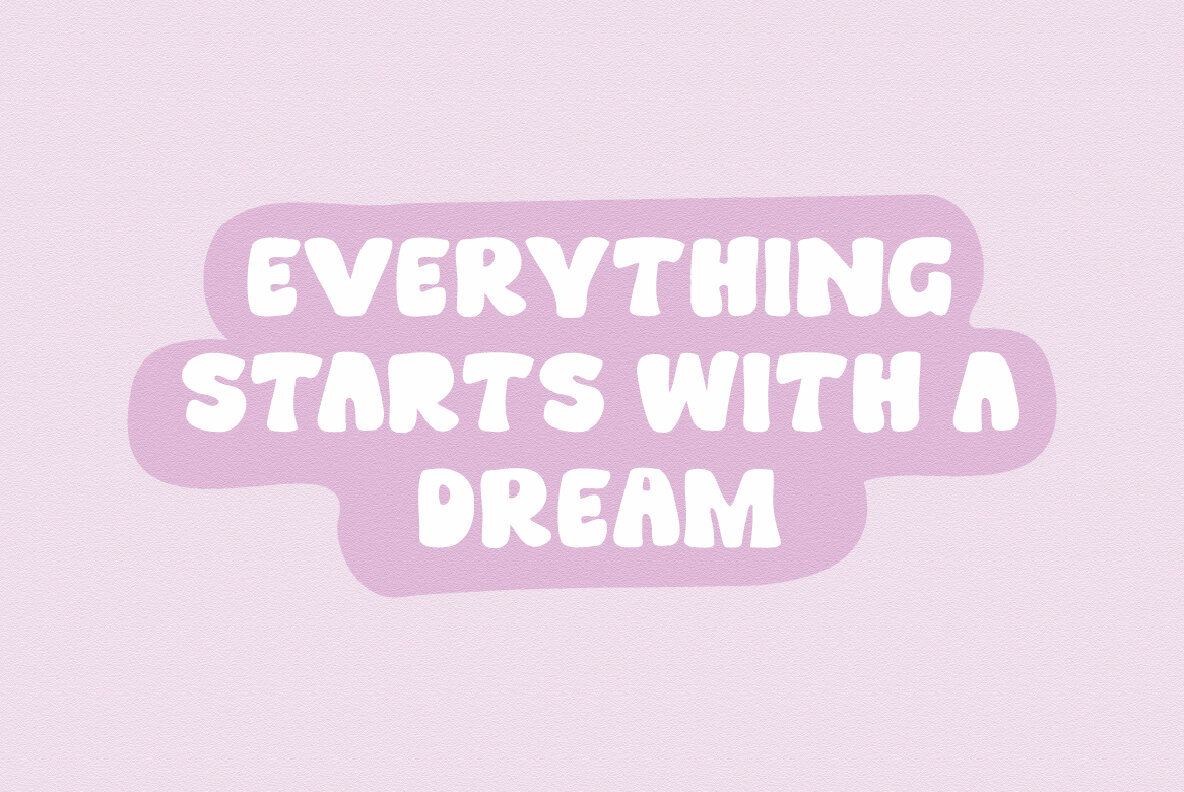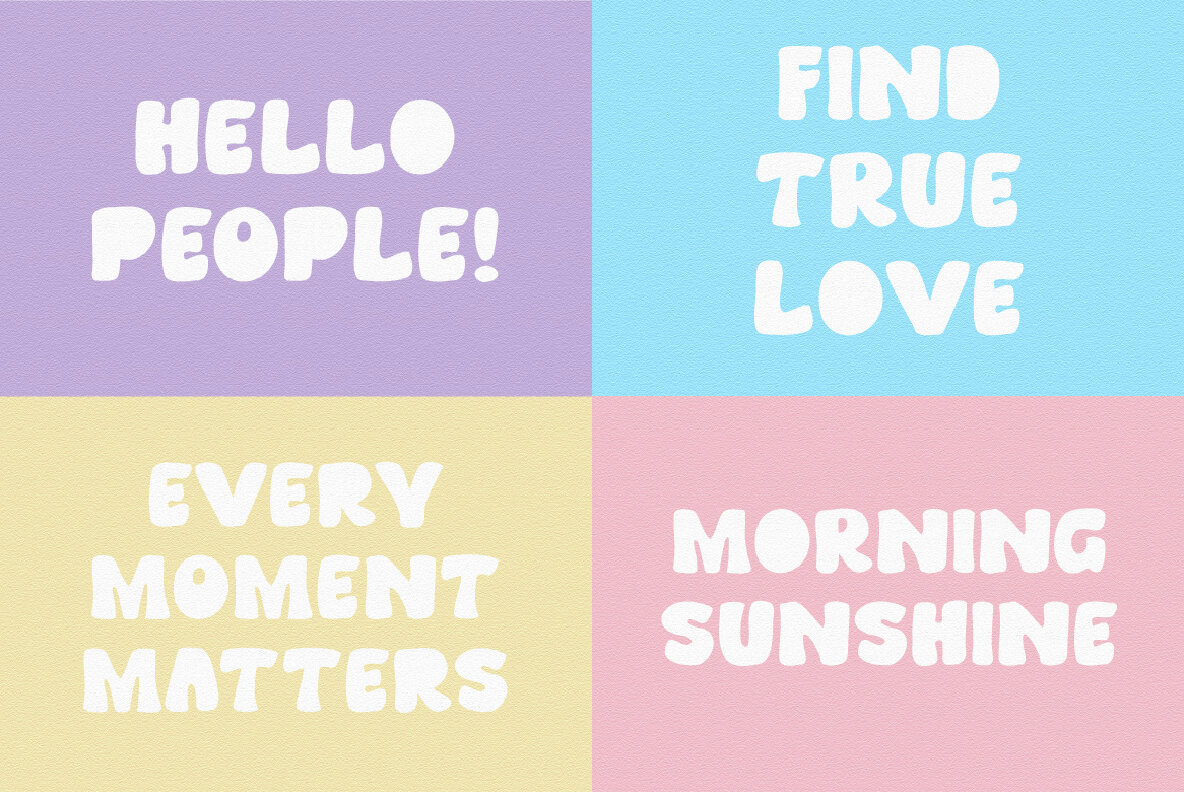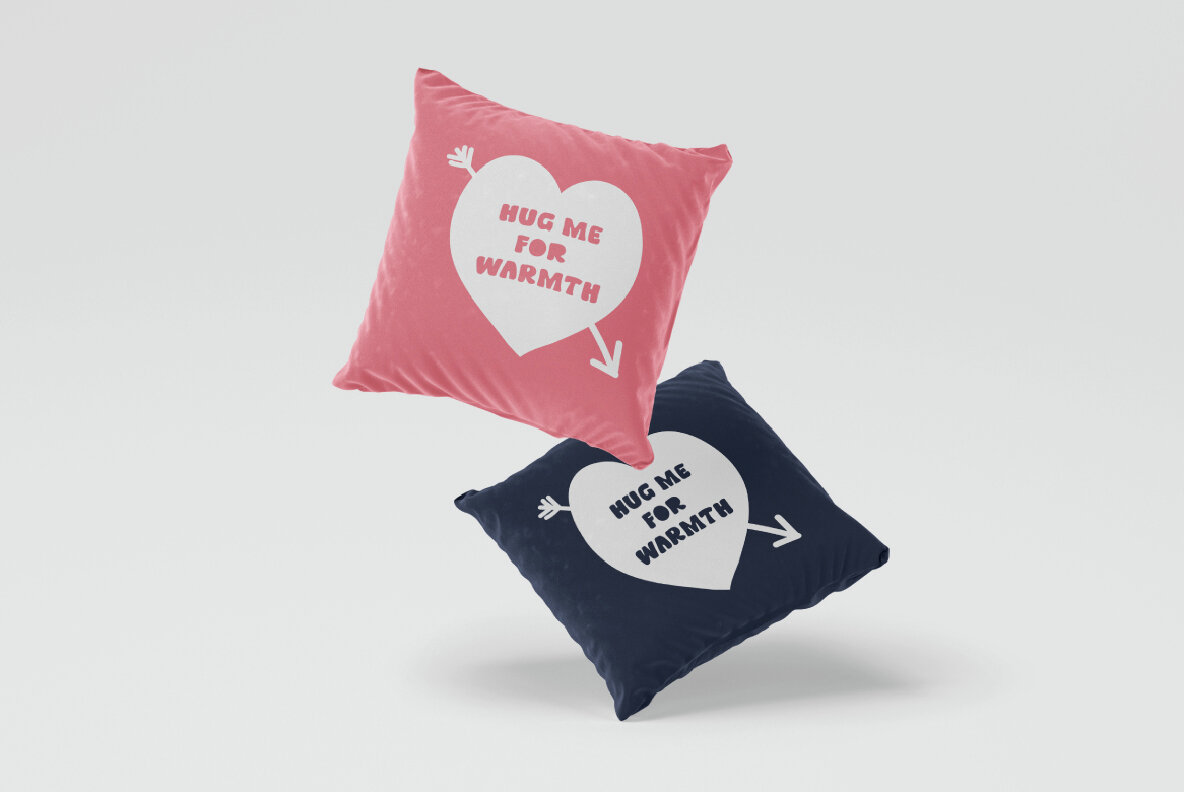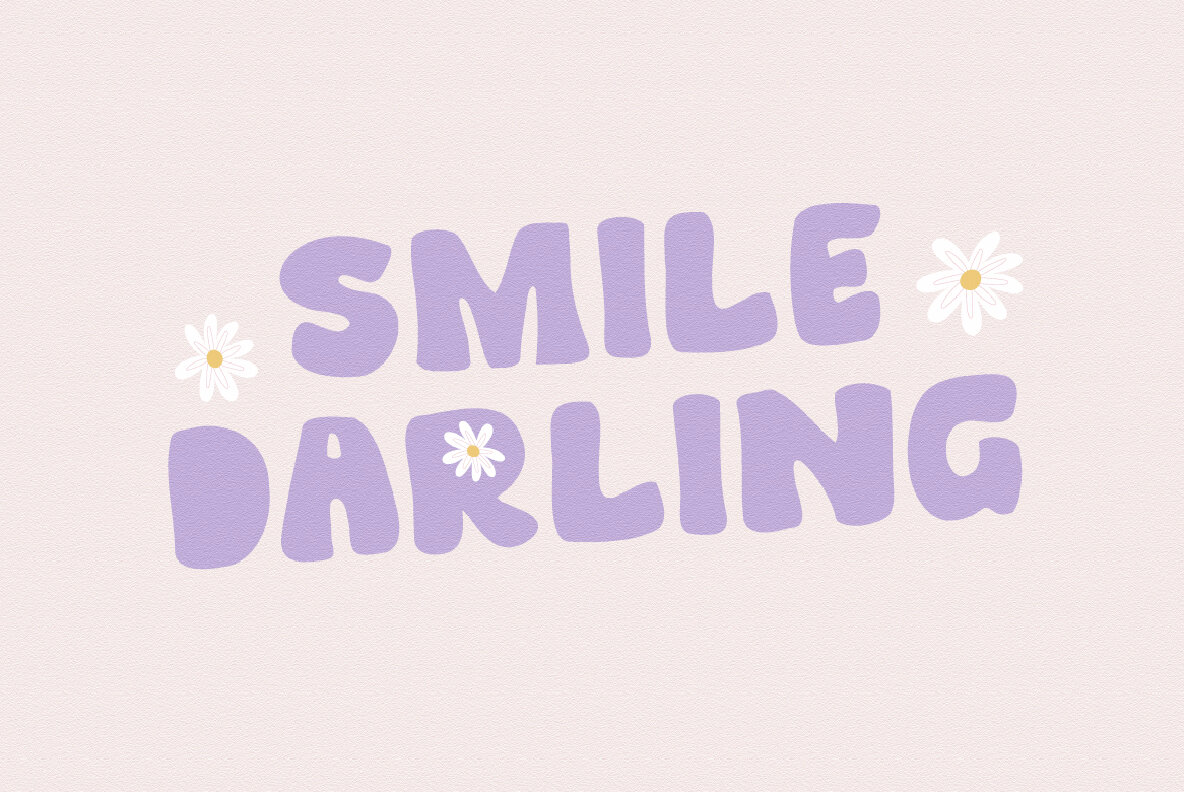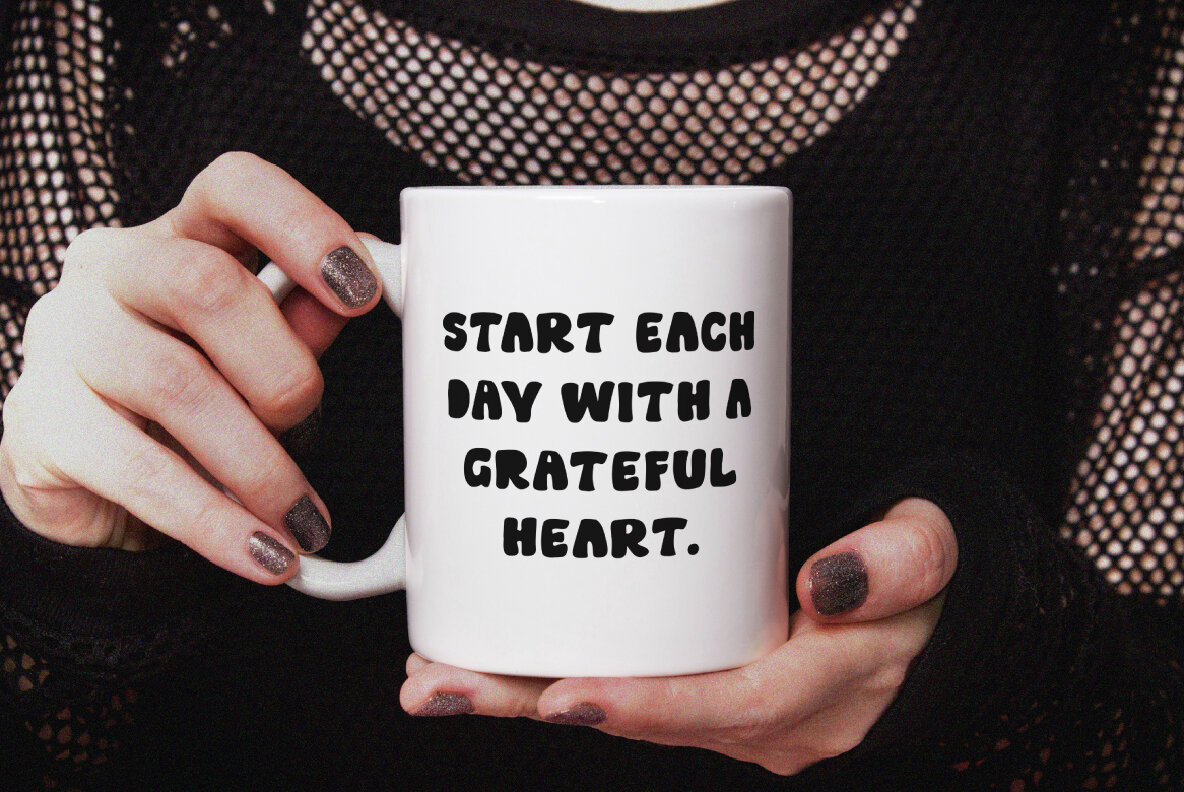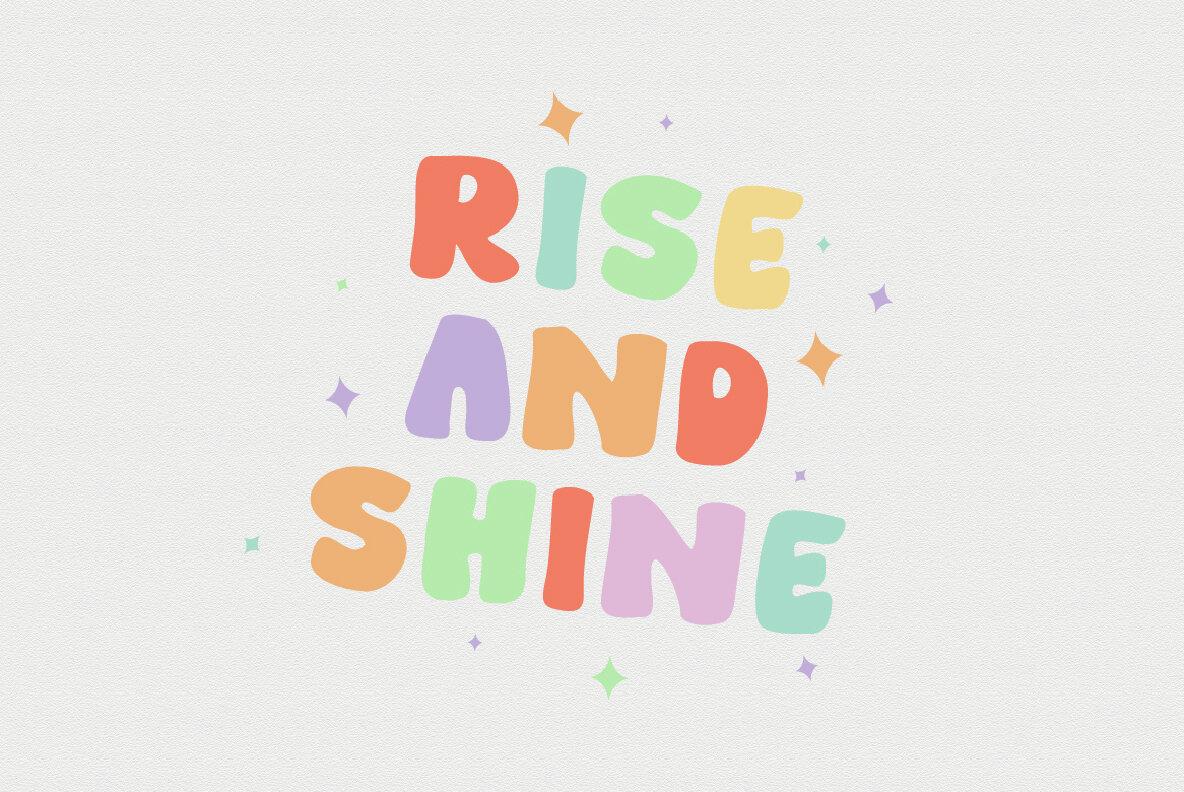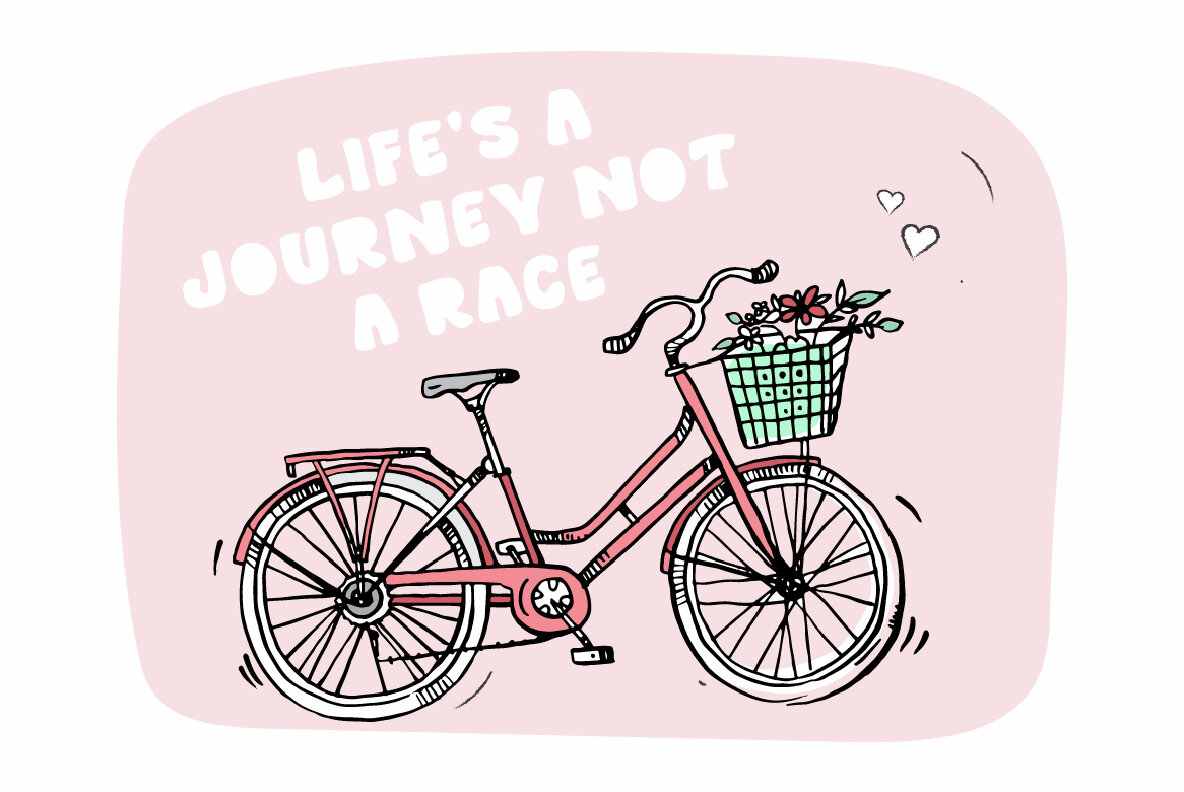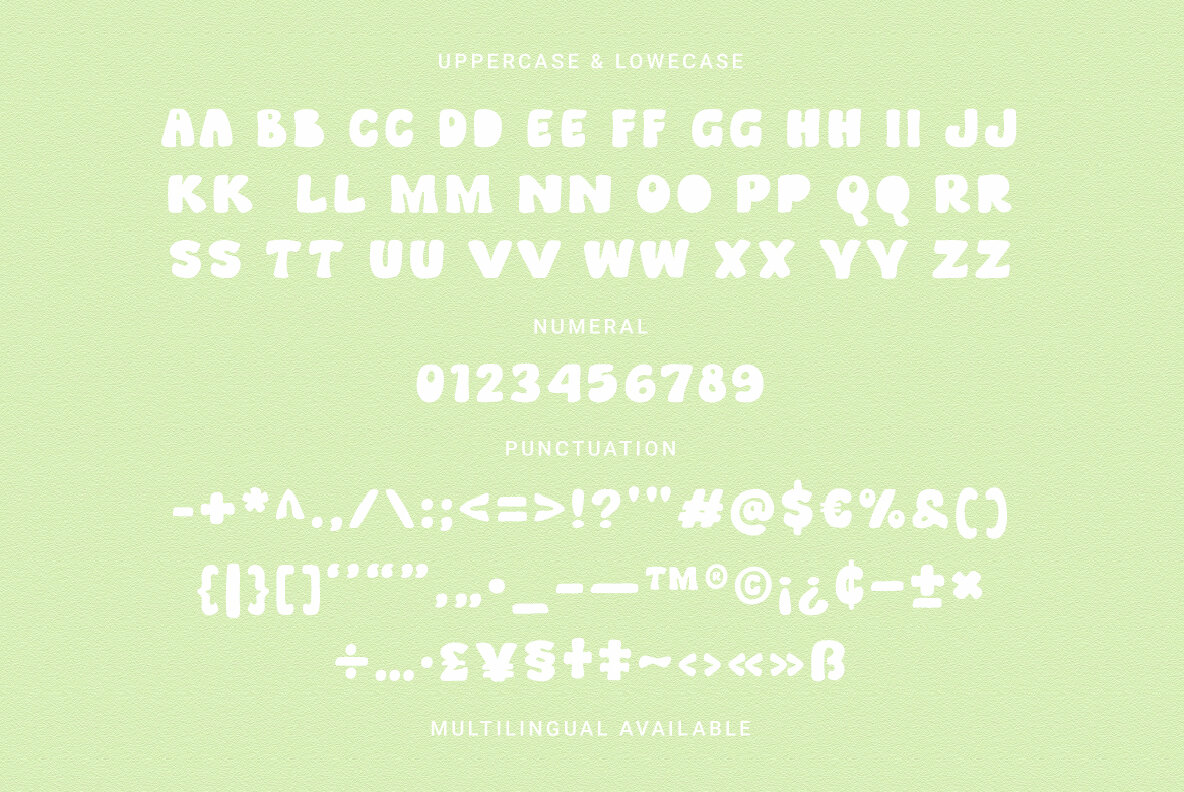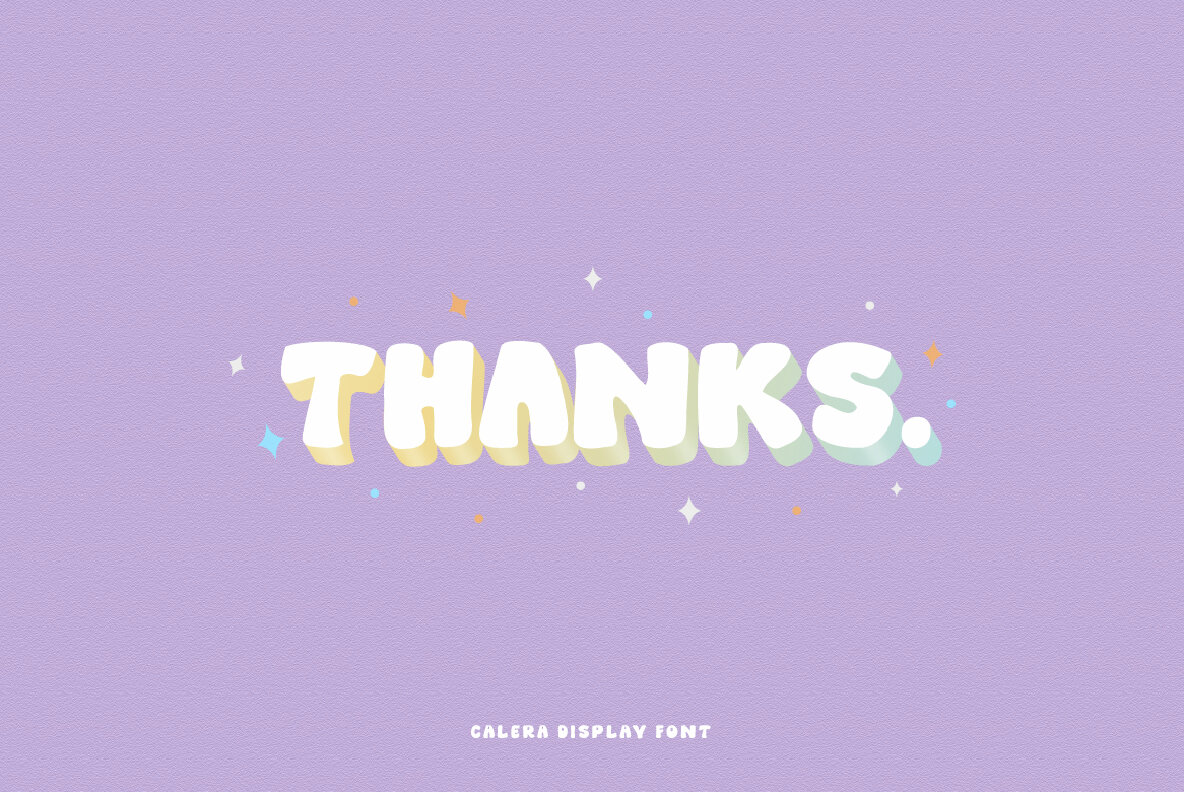
Calera Display Font
Calera Display Regular
Calera Display is a hand-drawn font, characterized by its funny and unique style. It features uppercase letters with closed counters in the lowercase letters, making every word distinct. Perfect for children’s book covers, social media posts, logos, and branding. Features: